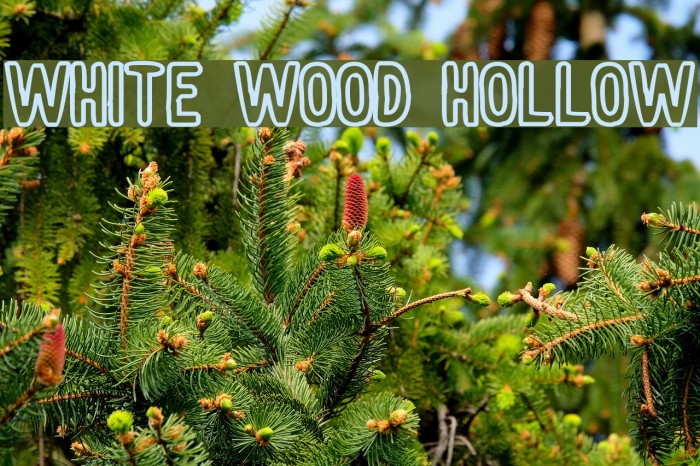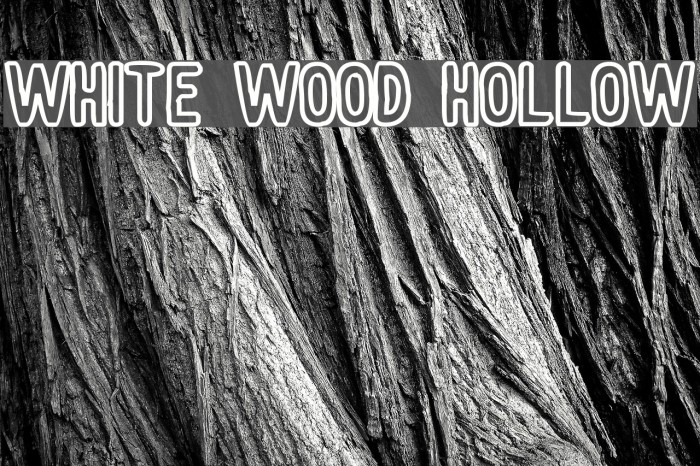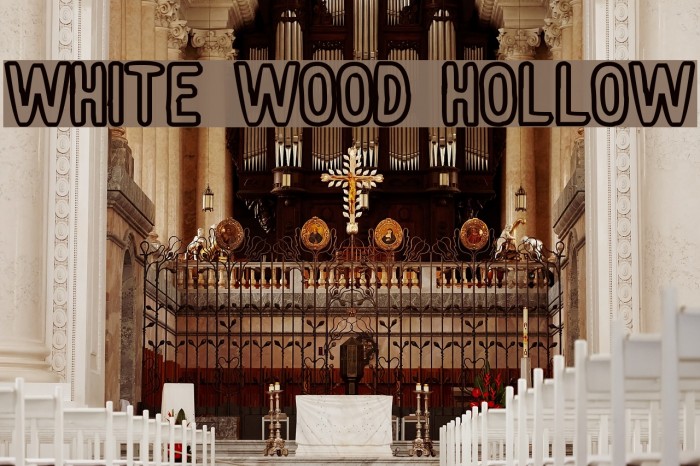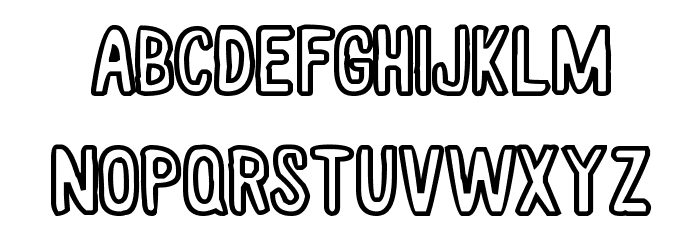
White wood Hollow Font
This font features a bold, playful style with a hollow interior, giving it a unique and eye-catching appearance. The letters are uppercase and have a consistent width, with rounded edges that add a friendly and approachable feel. The outline is thick, providing a strong contrast against the hollow center, making it ideal for designs that require a standout headline or title. The uniformity in letter height and width ensures readability while maintaining a decorative flair. This font is particularly suitable for creative projects where a fun and engaging typeface is desired.
A bold, hollow, and playful font with rounded edges and strong outlines.
• Proposed Projects: Ideal for children's books, playful branding, posters, and creative headlines.
• Category: Decorative/Display
• Overall Style: Playful, Decorative
• Use Case: Headlines, Logos, Posters